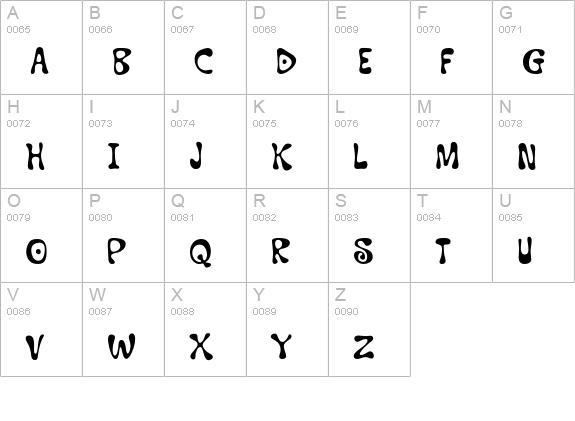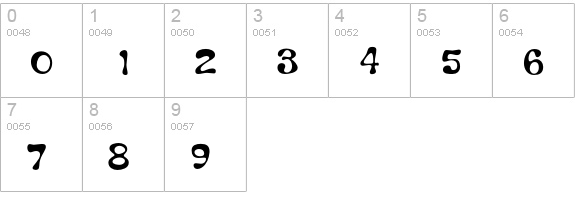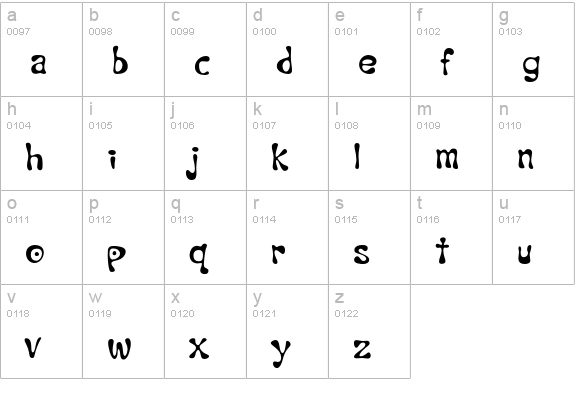
HavvaNiceDay Font Details
Introducing HavvaNiceDay font, a delightful and charming typeface that is sure to brighten up your designs and put a smile on your face. This playful and whimsical font is perfect for adding a touch of cheerfulness to any project. With its unique and hand-drawn letterforms, HavvaNiceDay font brings a sense of warmth and friendliness to your designs. Whether you're creating invitations, greeting cards, posters, or social media graphics, this font is sure to make a statement. One of the best features of HavvaNiceDay font is that it is completely free! Yes, you read that right. This amazing font is freely available to download at FontsMarket.com. Now you can add a touch of happiness to your designs without breaking the bank. HavvaNiceDay font is incredibly versatile and can be used in a variety of design contexts. Its smooth and flowing lines make it perfect for both headings and body text. The font also includes a range of ligatures and alternate characters, allowing you to customize your designs and create a truly unique look. So why not give your designs a little bit of sunshine with HavvaNiceDay font? Download it for free at FontsMarket.com and let your creativity shine. Don't miss out on this amazing opportunity to add a touch of joy to your designs without spending a dime. HavvaNiceDay font is here to make your day a little brighter, so go ahead and spread the happiness!